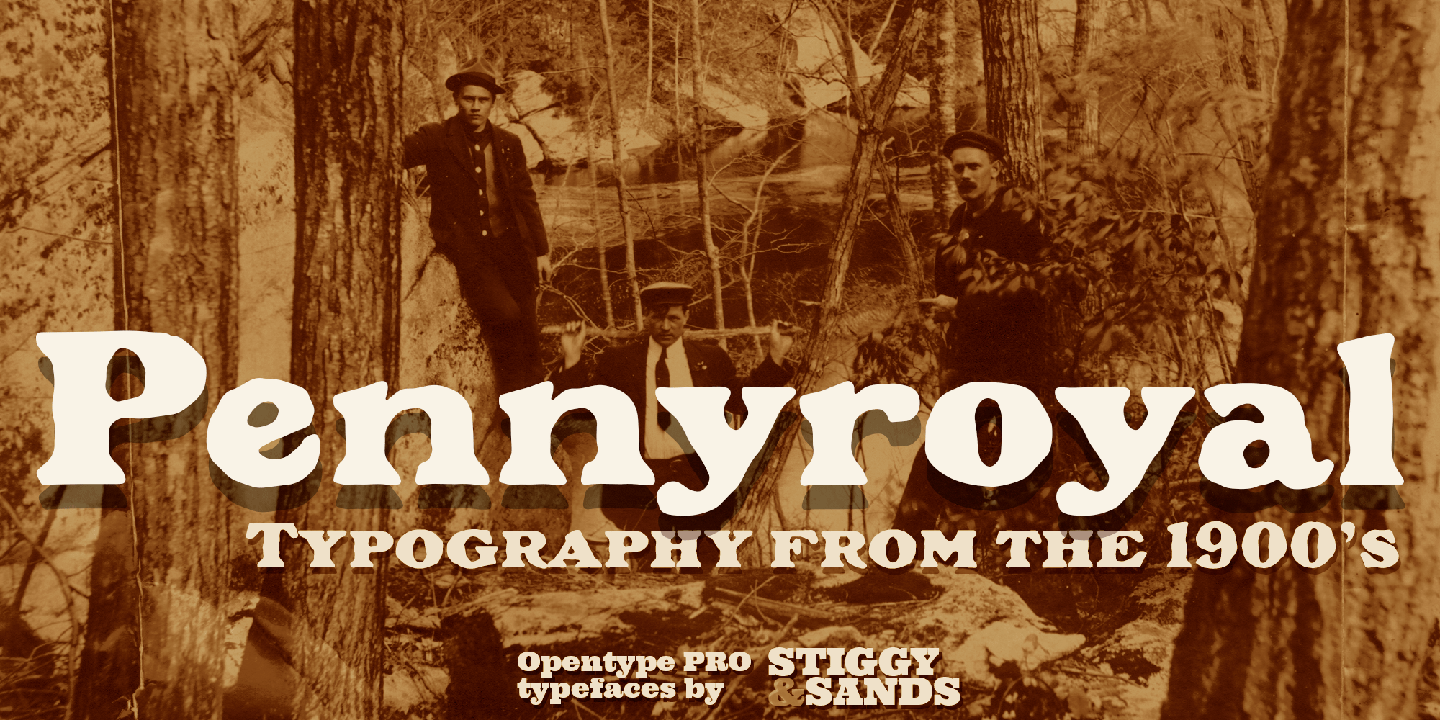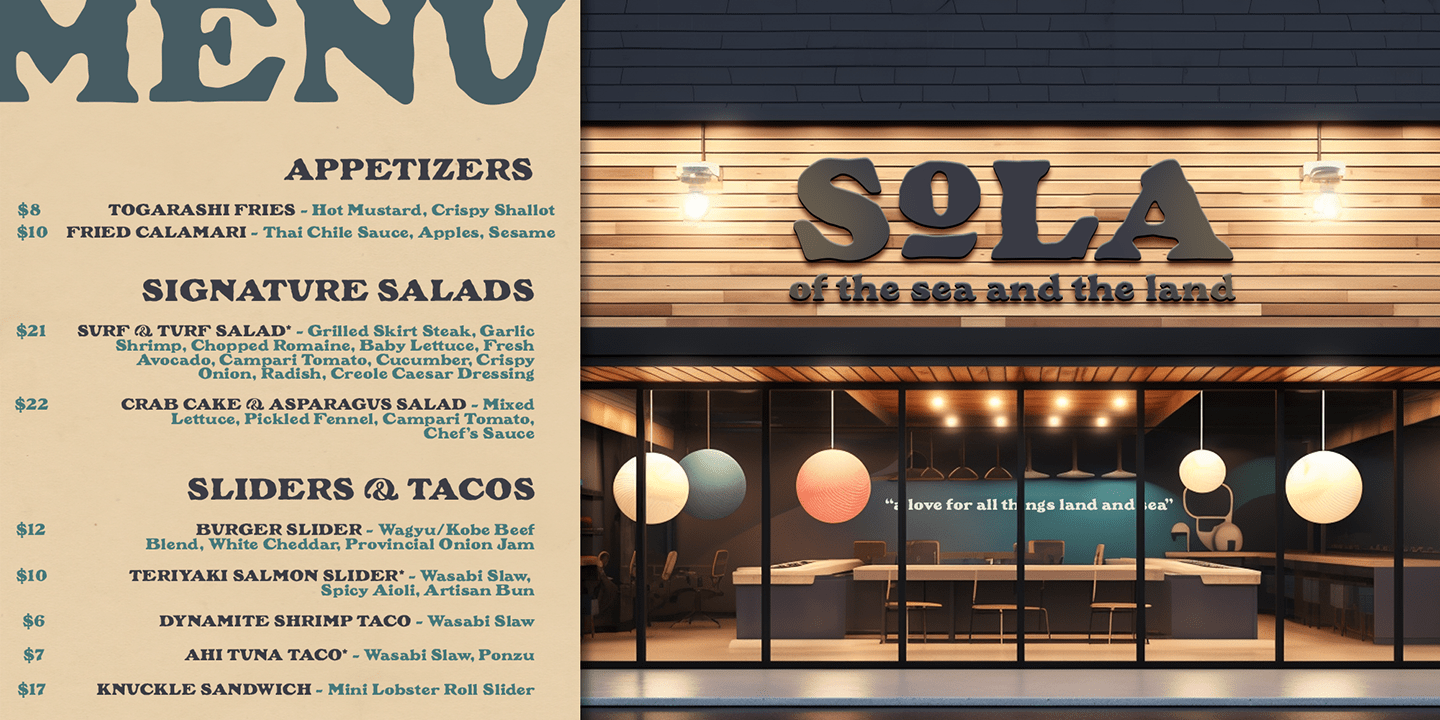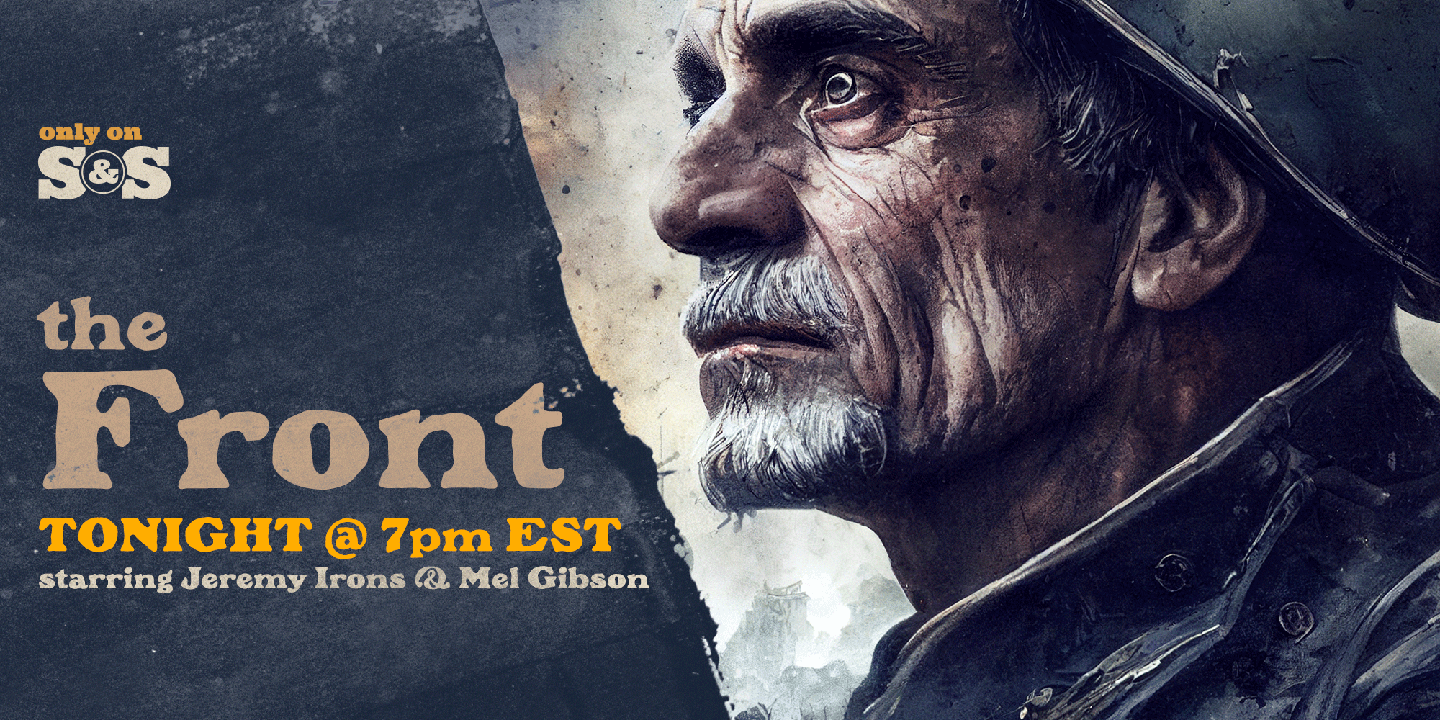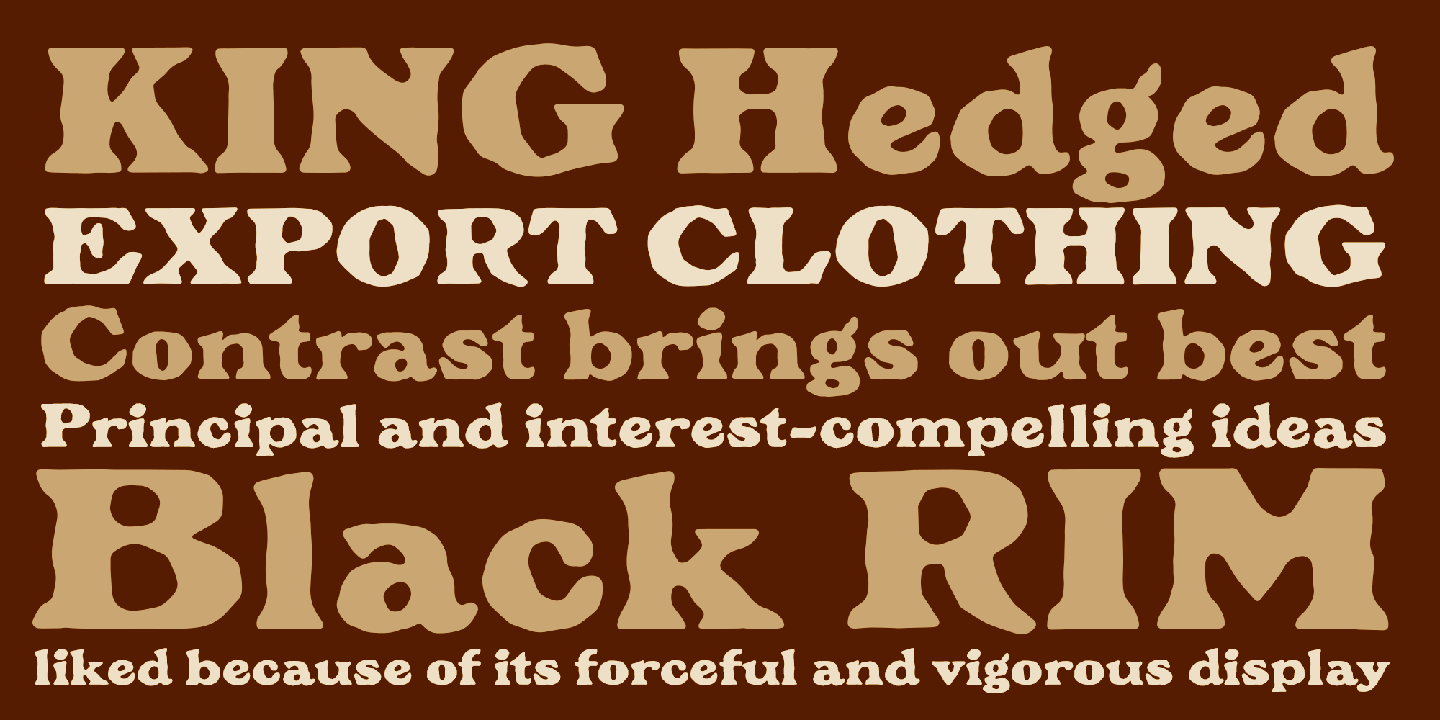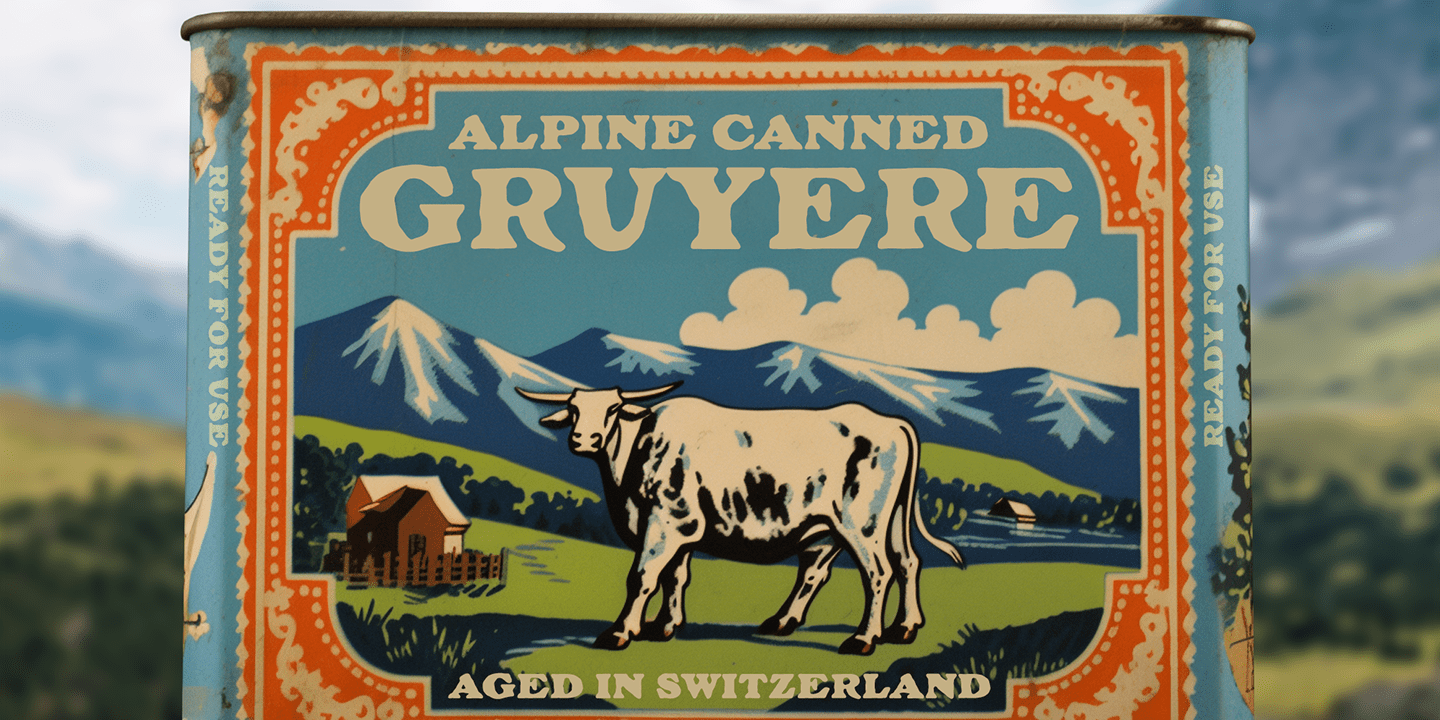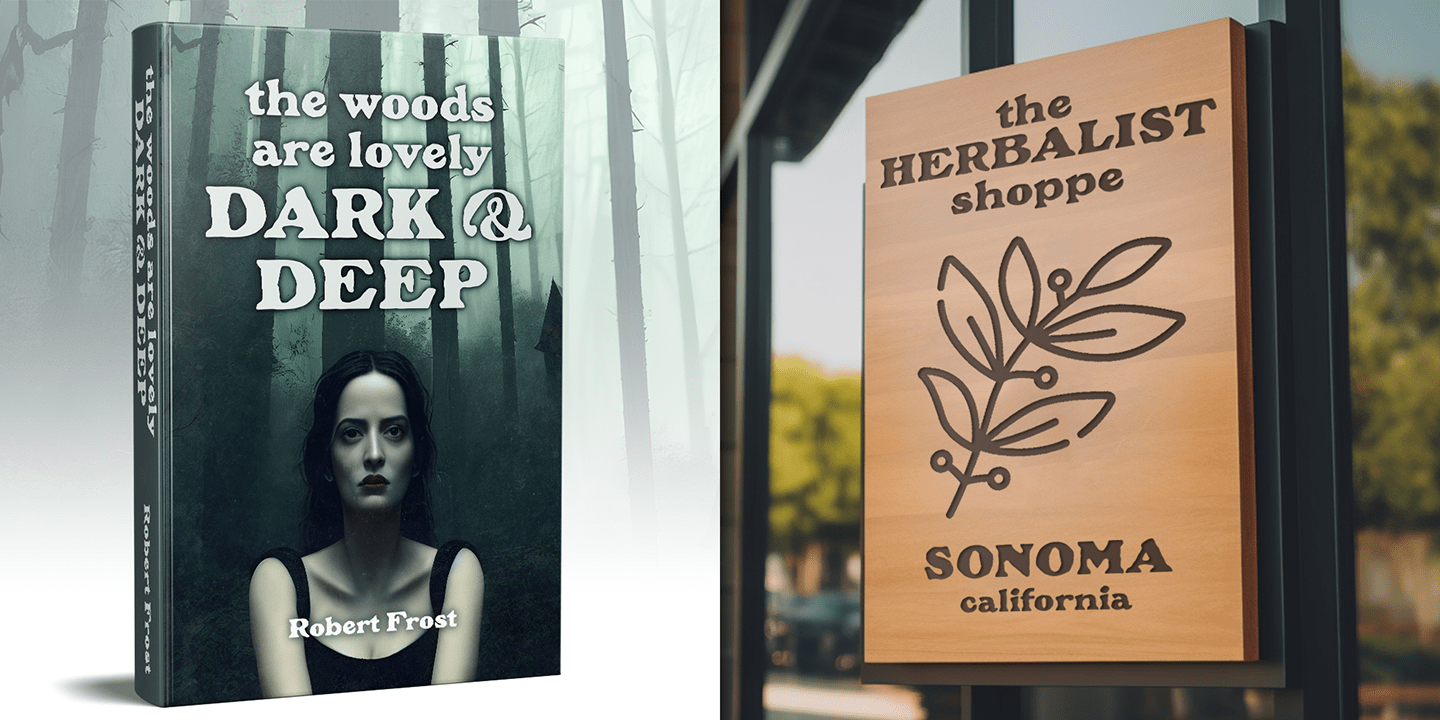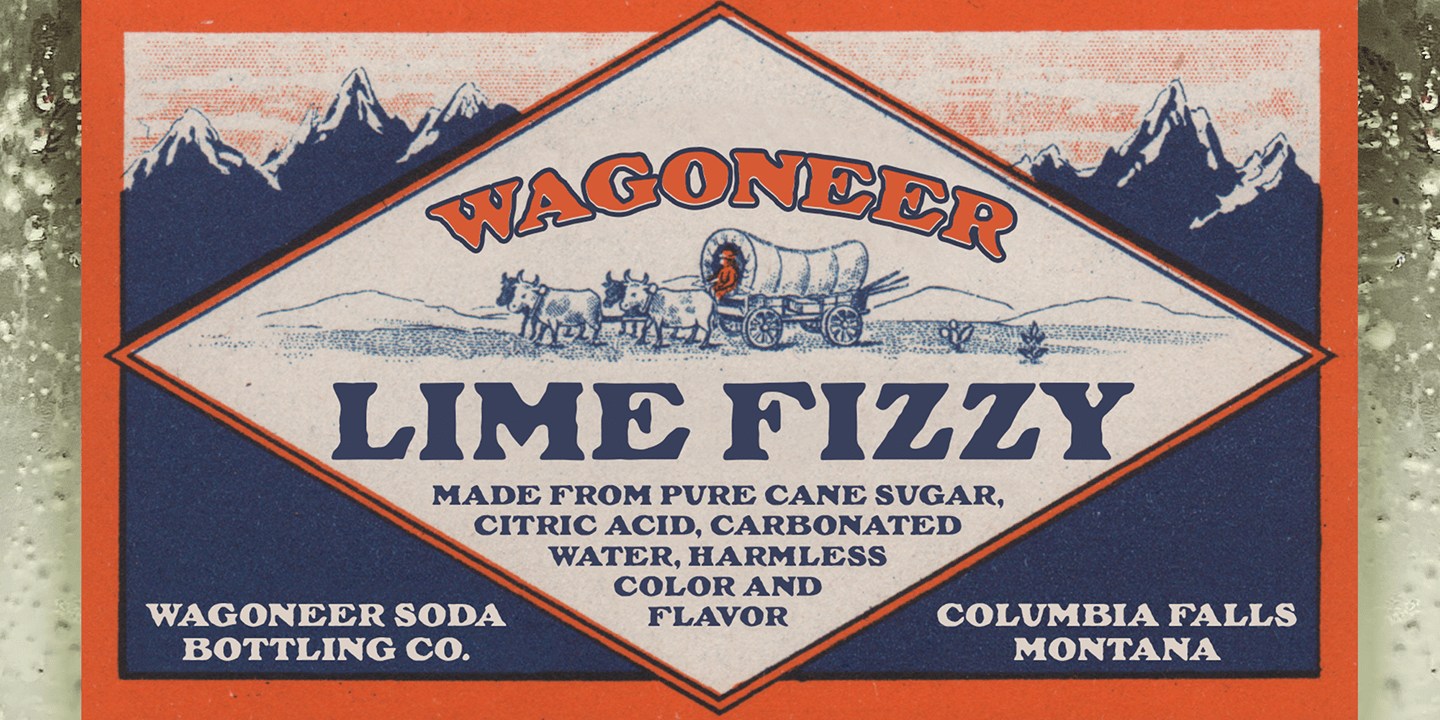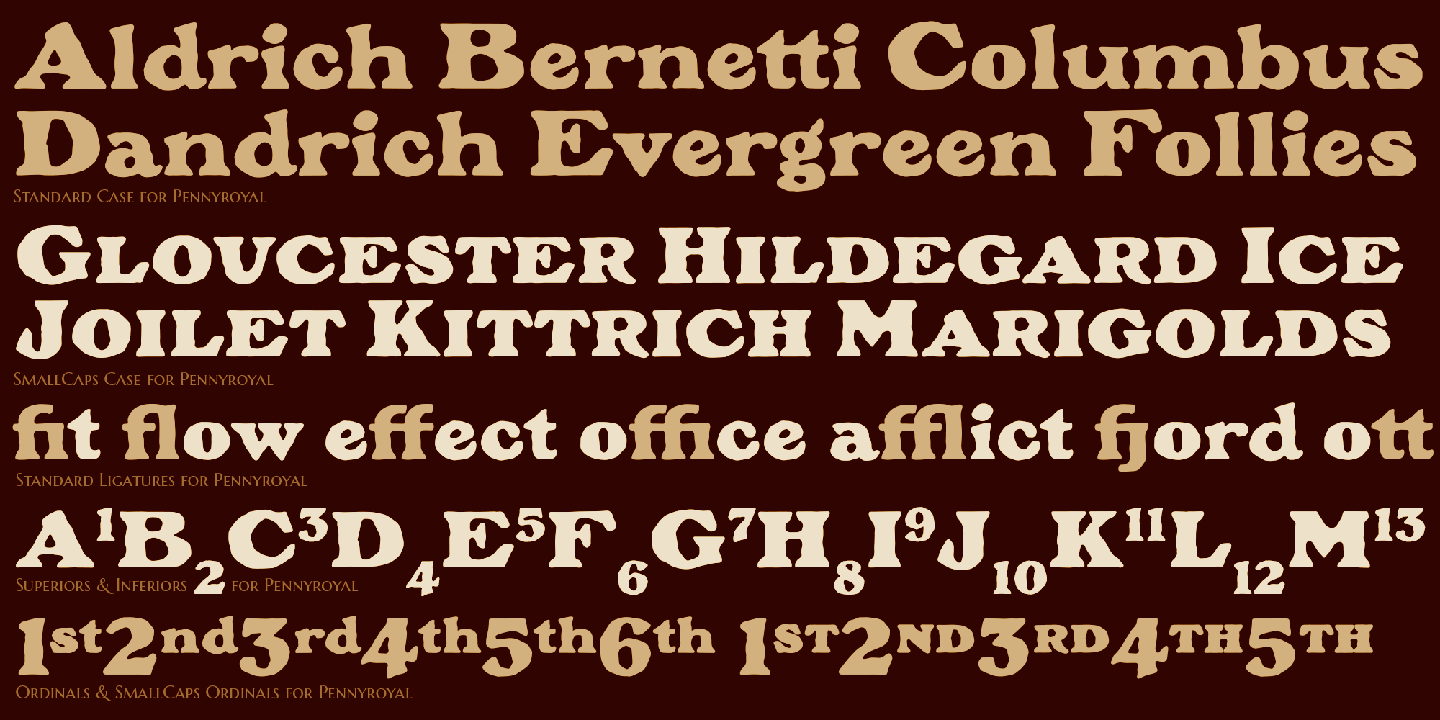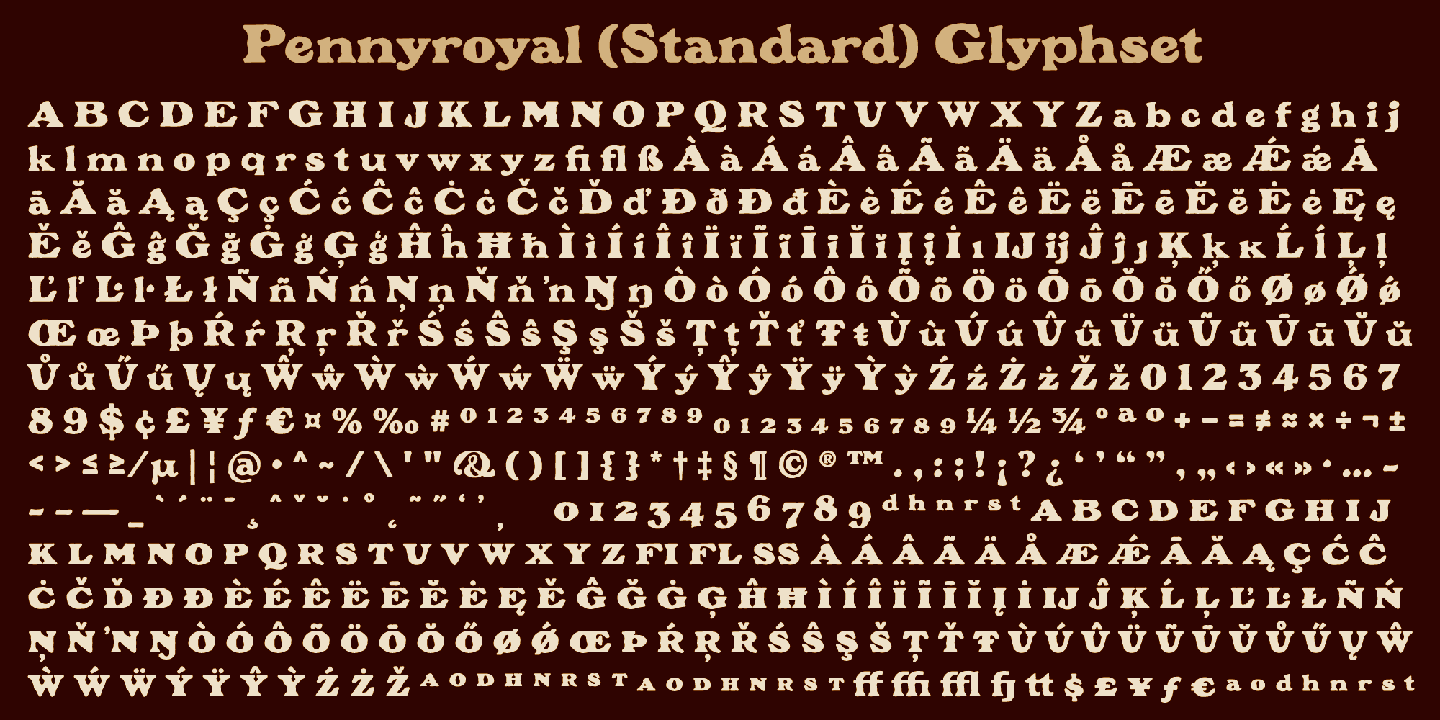
Pennyroyal
A Historic Revival with a Sophisticated Rustic Edge
Pennyroyal began as a Barnhart Brothers & Spindler typeface called Plymouth Bold, first cut in 1900. What began as a straightforward rustic typestyle has been revived to include a more extensive character set. But this font wasn't just revived, it has come alive with character and personality.
Pennyroyal includes 564 characters. The expanded SmallCaps option for gives the typestyle a more sophisticated look, expanding on the original typeface inspiration.
Opentype features include:
? A collection of ligatures.
? Smallcaps.
? Full set of Inferiors and Superiors.
? Proportional figures and Oldstyle figure sets